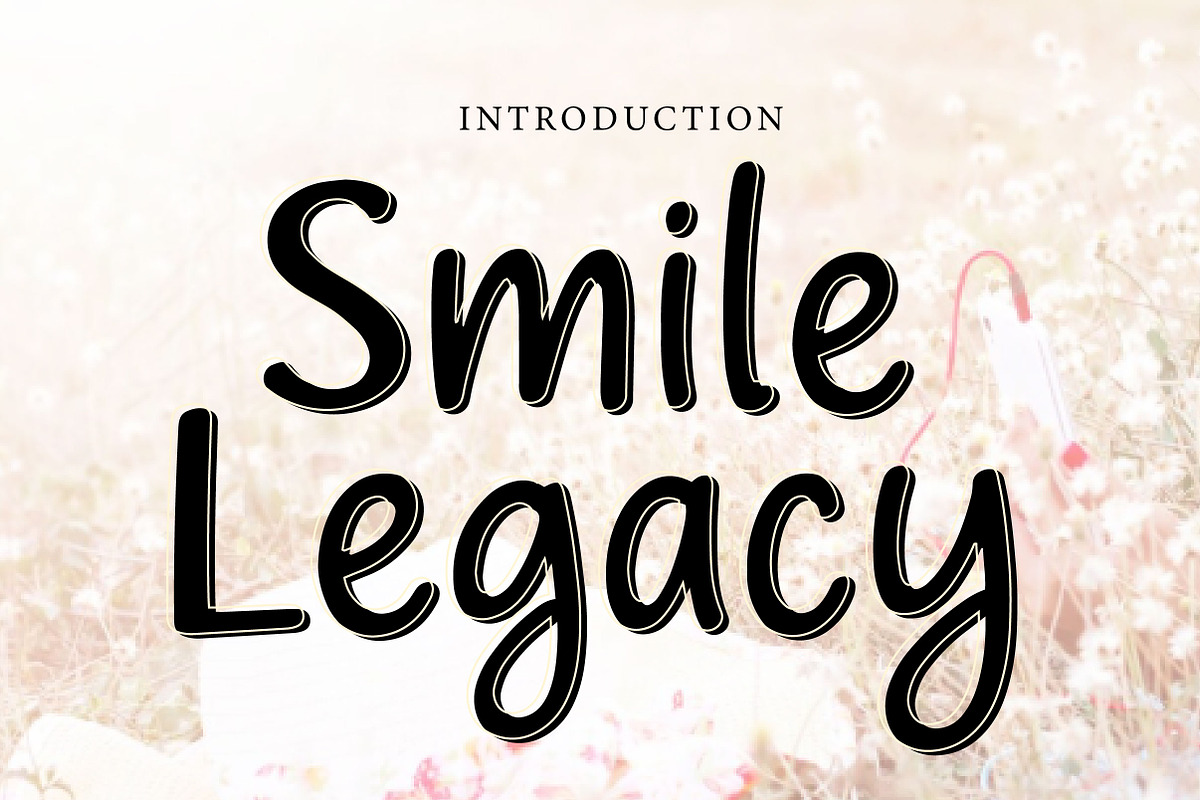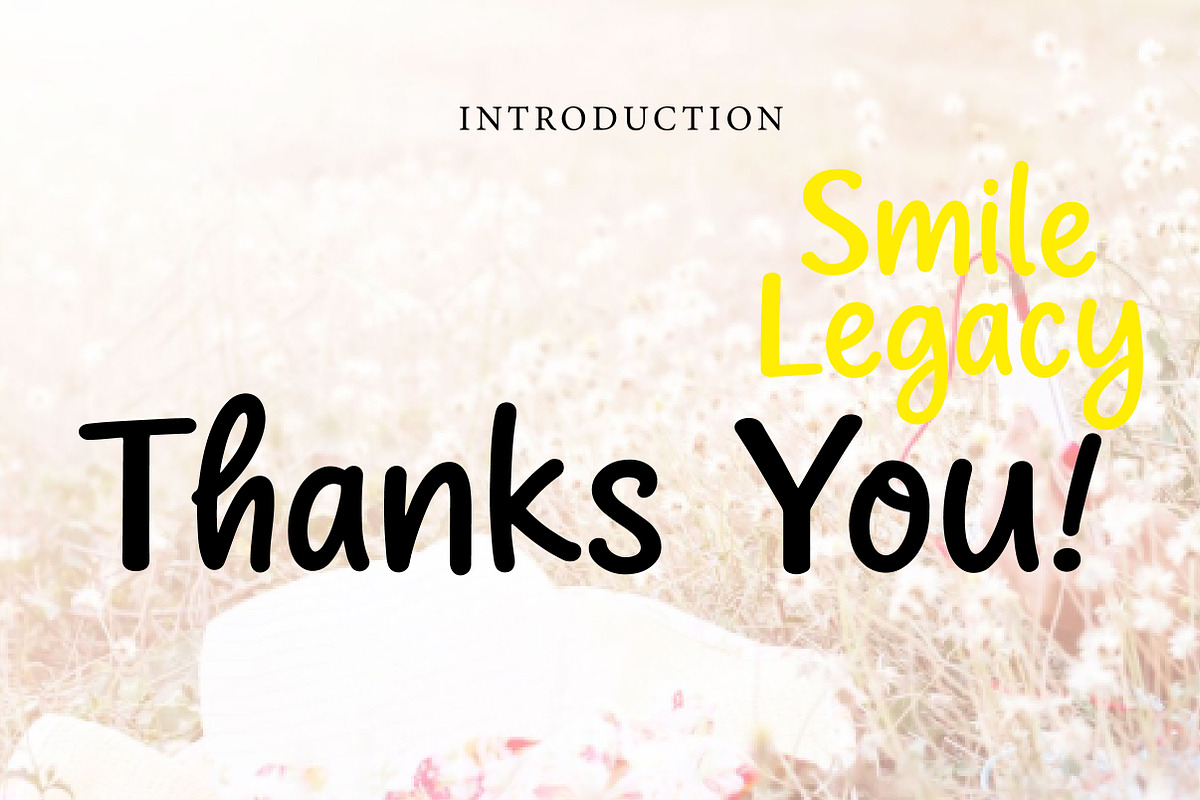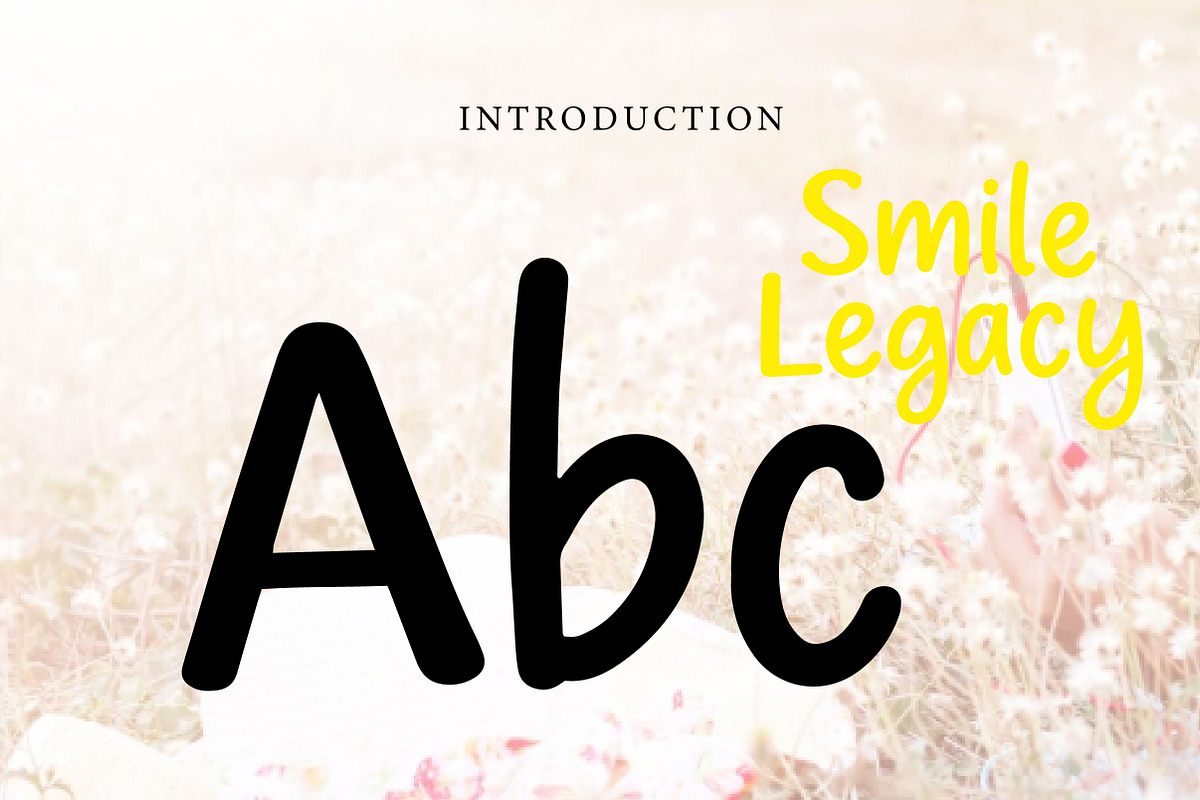
Smile Legacy
Smile Legacy – Playful Handwritten Script Font
Short Description:
Smile Legacy is a fun, friendly, and expressive handwritten script font, perfect for branding, quotes, packaging, invitations, and cheerful creative projects.
Full Description:
Smile Legacy is a playful handwritten script font designed to bring warmth, joy, and personality to your designs. With its smooth strokes, rounded shapes, and casual flowing style, this font creates a natural and approachable look that feels both charming and modern.
Its handwritten character makes it perfect for projects that need a personal, friendly, and lively touch. Whether you are designing product packaging, social media graphics, greeting cards, kids-related content, or branding materials, Smile Legacy helps your text feel more human, cheerful, and memorable.
This font is beautifully suited for both digital and print designs, making it a versatile choice for creative makers, small business branding, and playful visual identities.